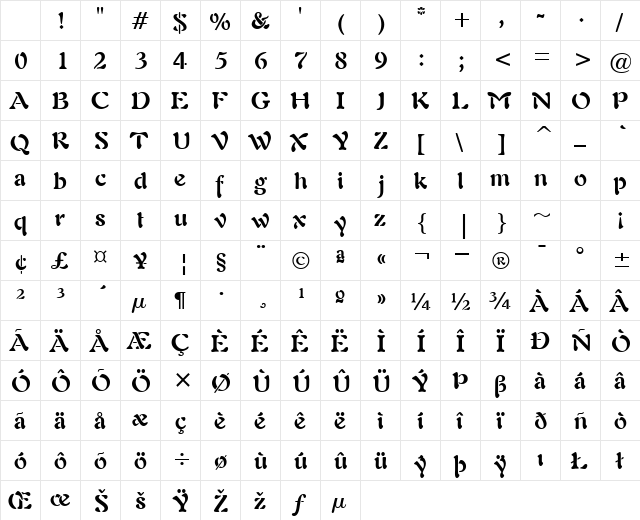
Complete ParielSSK Bold glyph index. Displaying only characters natively supported by ParielSSK Bold font.
ParielSSK is a composed and adaptable typeface that performs quietly and consistently across a wide range of design contexts. Its bold stroke weight gives it real presence on the page.